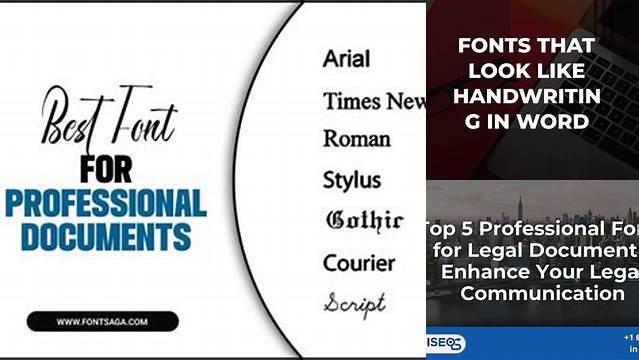
Top Beautiful Fonts In Word: Enhance Your Documents
Choosing the most beautiful fonts in Word can dramatically improve the look and feel of your documents. Whether you're working on a professional report, a creative project, or simply trying to make your resume stand out, the right font can make all the difference. Let’s dive into some amazing font options that can help you enhance your documents and express your unique style. Guys, finding the perfect font is like finding the perfect outfit – it just elevates everything!
1. Elegant Serif Fonts for Word
Serif fonts are characterized by the small decorative strokes at the end of each character, making them appear classic and polished. When you think about most beautiful fonts in Word, elegant serif options often come to mind. These fonts are particularly well-suited for formal documents, academic papers, and anything that requires a touch of sophistication. For example, Times New Roman has been a long-standing default choice for many, but there are so many other fantastic serif fonts to explore! Georgia, with its clear and readable design, is another excellent option. It’s designed to look great on screens, making it a perfect fit for digital documents. Then there's Garamond, which exudes a timeless elegance and is ideal for both body text and headings. Using these fonts can give your work a professional and refined edge. Imagine crafting a research paper with Garamond – it just sounds classy, right? Selecting the right serif font can truly elevate your document's overall appeal and readability. So next time you're working on something formal, consider giving these elegant serif fonts a try. Trust me, they're game changers!
2. Modern Sans-Serif Fonts in Word
Sans-serif fonts, on the other hand, lack those decorative strokes, giving them a cleaner, more contemporary appearance. When considering the most beautiful fonts in Word, sans-serif options bring a fresh and modern vibe. These fonts are perfect for websites, presentations, and documents that need a sleek and minimalist look. Arial is a classic sans-serif font that's widely used and highly readable. Calibri, which replaced Times New Roman as the default in Microsoft Word, offers a softer, more rounded feel. But if you're looking for something a bit more distinctive, consider using Helvetica or Futura. Helvetica is known for its clean lines and versatility, making it a popular choice for logos and branding. Futura, with its geometric shapes, adds a touch of modernity and sophistication. Using sans-serif fonts can give your documents a contemporary edge, making them visually appealing and easy to read. For instance, think about a presentation using Futura – it immediately looks cutting-edge and stylish. So, for your next project, why not experiment with some modern sans-serif fonts and see how they can transform your work? They're sure to impress!
3. Best Script Fonts for Word Documents
Script fonts mimic the flowing strokes of handwriting, adding a personal and artistic touch to your documents. If you’re aiming for a touch of elegance or creativity, script fonts can be among the most beautiful fonts in Word. These fonts are particularly great for invitations, greeting cards, and any project where you want to convey a sense of warmth and individuality. Brush Script is a classic choice that's often used for a friendly, informal look. However, it’s essential to use script fonts sparingly, as they can be harder to read in large blocks of text. For a more refined option, consider using scripts like Edwardian Script or Monotype Corsiva. These fonts exude sophistication and are perfect for adding a touch of class to your projects. Imagine using Edwardian Script for wedding invitations – it instantly adds a romantic and elegant feel. Just remember to balance the use of script fonts with more readable fonts for the main body of your text to ensure clarity. So, next time you want to add a personal touch to your work, explore the world of script fonts – they’re a fantastic way to make your documents stand out!
4. Unique Fonts to Use in Microsoft Word
If you're looking to break away from the standard font options, there are plenty of unique fonts available that can make your documents truly stand out. Exploring these unique options is a great way to discover the most beautiful fonts in Word that suit your personal style. Fonts like Impact, with its bold and attention-grabbing design, are perfect for headings and titles. For a more whimsical touch, consider using Comic Sans MS – although it’s a bit controversial, it can be fun for informal projects. But if you're after something truly special, you might want to explore decorative or display fonts. These fonts often have unique shapes and intricate designs, making them ideal for creative projects and branding. Just remember to use these fonts judiciously, as they can sometimes be harder to read in large amounts of text. Imagine using a unique display font for the title of a poster – it can really capture attention and make your design pop. So, dare to be different and explore the world of unique fonts – they can bring a fresh and exciting dimension to your documents!
5. Professional Fonts for Word Resumes
When it comes to creating a resume, choosing the right font is crucial. Your font should be professional, easy to read, and reflect your personal brand. Among the most beautiful fonts in Word for resumes are those that strike a balance between style and readability. Classic choices like Times New Roman and Arial are always safe bets, but they can sometimes feel a bit overused. For a more modern yet professional look, consider using sans-serif fonts like Calibri or Helvetica. These fonts are clean, crisp, and easy on the eyes, making your resume more accessible to recruiters. If you want to add a touch of personality while maintaining professionalism, Georgia or Cambria are excellent serif options that are both elegant and readable. Avoid using overly decorative or script fonts, as they can be distracting and difficult to read. Remember, the goal is to make your resume as clear and impactful as possible. Imagine a recruiter quickly scanning through dozens of resumes – you want yours to stand out for the right reasons. So, choose a font that presents you in the best light and helps you make a stellar first impression. After all, a well-chosen font can be the difference between your resume getting a second glance or being passed over. Let's make sure yours shines!
6. Fonts for Formal Documents in Word
For formal documents, such as legal papers, official reports, and academic essays, the font you choose can significantly impact the document's credibility. The most beautiful fonts in Word for these situations are those that convey professionalism, clarity, and respect for tradition. Serif fonts are generally preferred for formal documents due to their classic and refined appearance. Times New Roman is a traditional choice that remains popular for its readability and formal tone. However, other excellent options include Garamond and Book Antiqua, which offer a similar level of sophistication. Avoid using casual or decorative fonts, as they can make your document appear unprofessional. Stick to fonts that are easy to read in large blocks of text and that convey a sense of seriousness and attention to detail. Think about submitting a legal document in Comic Sans – it just wouldn't fly, right? So, when preparing formal documents, opt for fonts that command respect and ensure your message is taken seriously. Choosing the right font is a small detail that can make a big difference in how your work is perceived. Let's keep it classy and professional!
7. Fonts for Creative Projects in Word
When working on creative projects, you have the freedom to experiment with more expressive and unique fonts. The most beautiful fonts in Word for these endeavors are those that capture the spirit of your project and add a touch of personality. Script fonts, such as Brush Script or Monotype Corsiva, can be perfect for invitations, greeting cards, and artistic designs. Display fonts, with their bold and attention-grabbing designs, are great for posters, flyers, and promotional materials. For a modern and stylish look, consider using sans-serif fonts like Helvetica or Futura. The key is to choose fonts that reflect the tone and style of your project. If you're designing a children's book, for example, a playful font like Comic Sans MS might be appropriate. On the other hand, if you're creating a sophisticated marketing campaign, a sleek and modern font might be a better choice. Don't be afraid to mix and match fonts to create visual interest, but make sure your choices are cohesive and easy to read. Imagine designing a birthday invitation – you'd want a font that's fun and festive, right? So, unleash your creativity and explore the wide range of fonts available to find the perfect match for your project. Let your fonts speak volumes and make your creative work truly shine!
8. Fonts for Body Text in Word
Choosing the right font for the body text of your documents is crucial for readability and overall visual appeal. While the most beautiful fonts in Word can vary based on personal preference, the primary goal for body text should always be clarity. Serif fonts are generally considered more readable for large blocks of text because the serifs help guide the reader's eye across the page. Times New Roman is a classic choice, but Georgia and Garamond are also excellent options. Sans-serif fonts, while often used for headings, can also work well for body text if chosen carefully. Calibri, with its soft and rounded design, is a popular sans-serif choice. Avoid using overly decorative or script fonts for body text, as they can be difficult to read and tire the eyes. The font size is also important – a size of 11 or 12 points is generally recommended for body text. Think about reading a long article in a decorative font – it would be a real strain, wouldn't it? So, prioritize readability when choosing fonts for your body text and make your documents a pleasure to read. After all, clear communication is key!
9. Fonts for Headings and Titles in Word
The fonts you use for headings and titles can make a significant impact on the overall visual structure and appeal of your document. The most beautiful fonts in Word for headings are those that stand out and grab the reader's attention while maintaining readability. Sans-serif fonts are often a great choice for headings due to their clean and modern look. Arial, Helvetica, and Futura are popular options that provide a clear contrast with the body text. However, serif fonts can also work well for headings, especially if the body text uses a different serif font. Garamond, for example, can make a sophisticated heading font when paired with a more traditional body text font like Times New Roman. Decorative and display fonts can be used for headings to add a touch of personality, but they should be used sparingly to avoid overwhelming the reader. The font size and weight are also important considerations – headings should be larger and bolder than the body text to create a clear hierarchy. Think about skimming through a document – the headings should jump out and guide you through the content, right? So, choose your heading fonts wisely to create a visually appealing and well-organized document that captivates your audience!